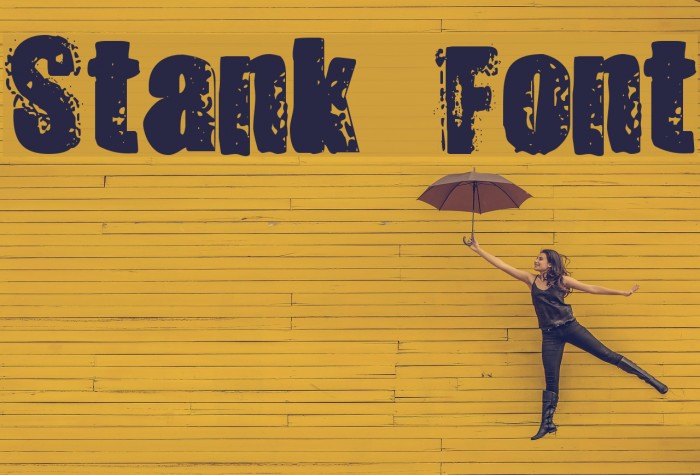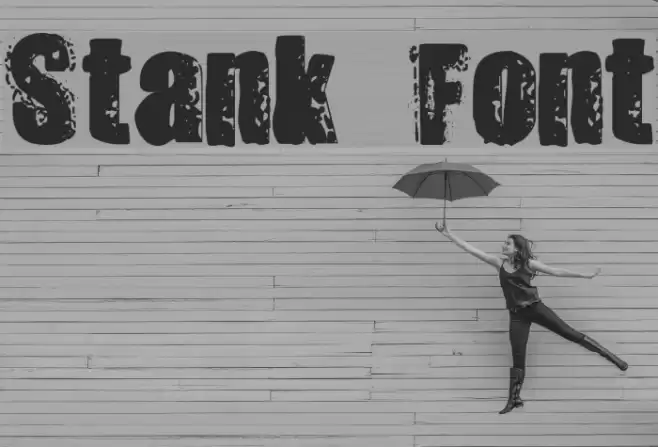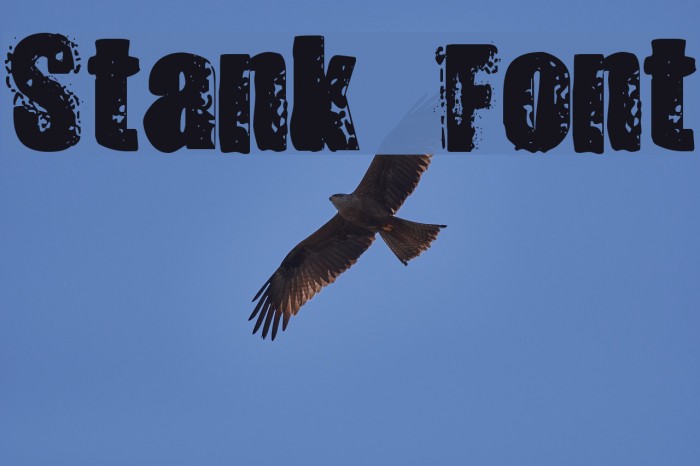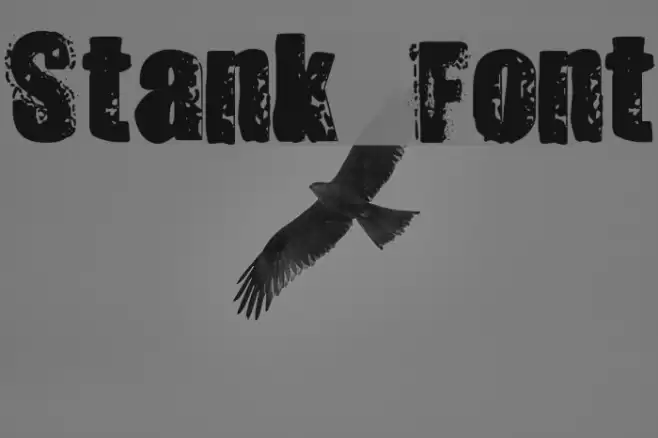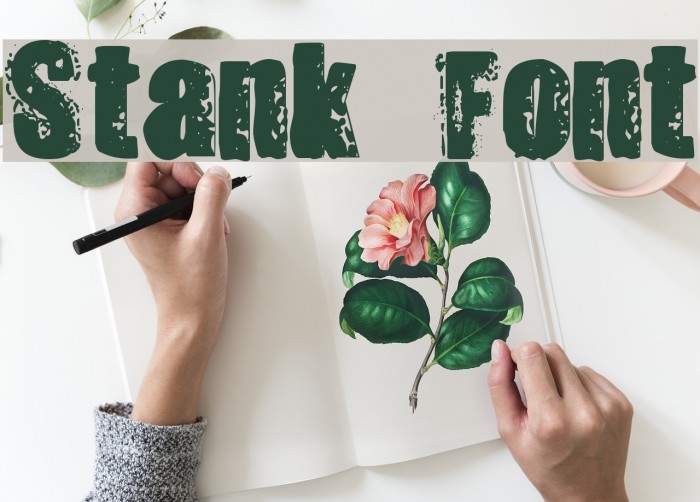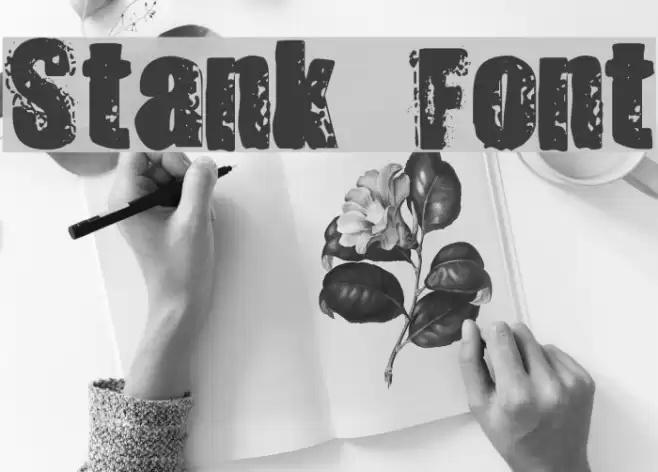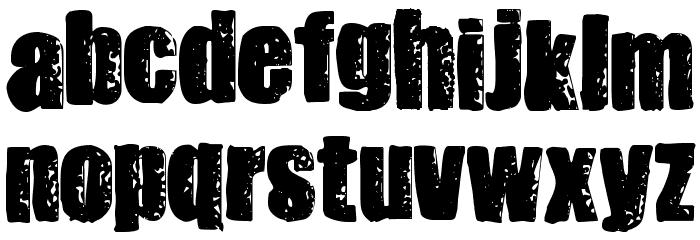
Stank Font
Stank Description
This font features a bold and distressed style, characterized by its rough, textured appearance. The uppercase and lowercase letters are thick and heavy, with irregular edges that give it a worn, vintage look. The numbers and special characters follow the same design, maintaining a consistent aesthetic throughout. This font's unique style makes it stand out, perfect for projects that require a strong, impactful visual presence.
| Overall Style | Vintage |
| Proposed Projects | Ideal for posters, album covers, branding for edgy or vintage-themed products, and any design needing a bold statement. |